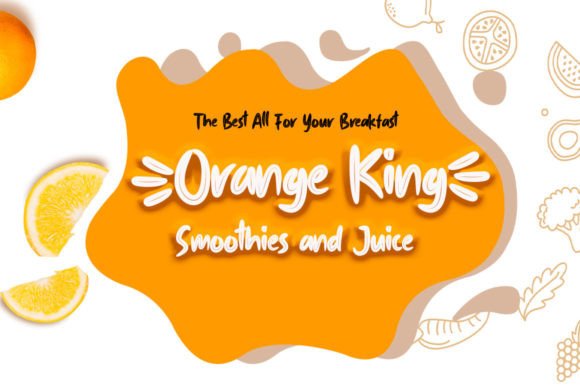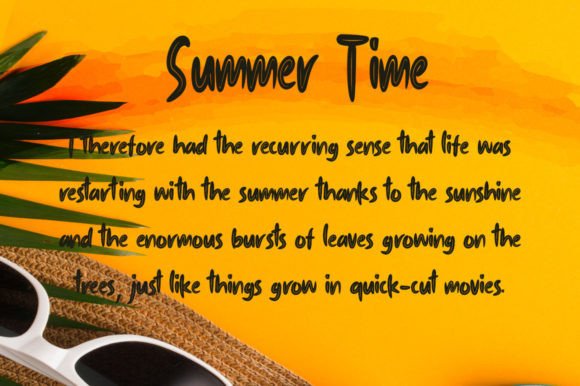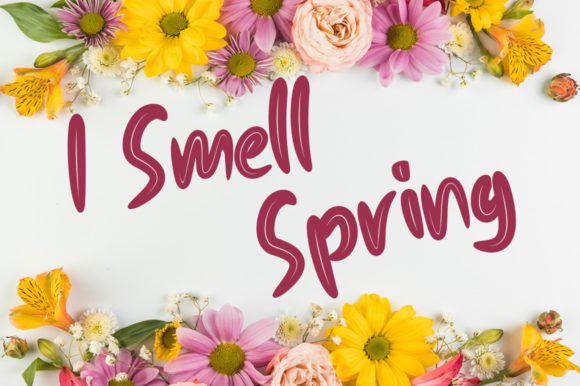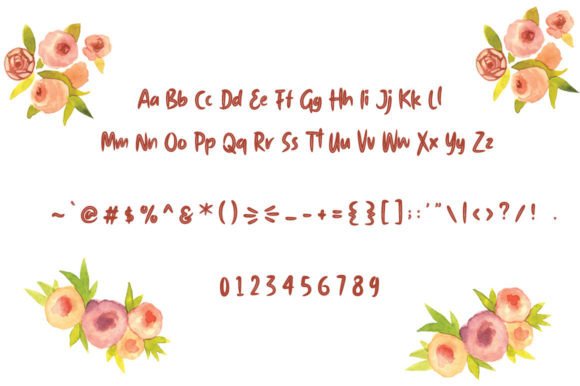
Dark Coffea Font
About Dark Coffea Font
Introducing Dark Coffea, a fun and handwritten font with a distinct coffee-like shape. This font is designed to bring a playful and energetic vibe to your designs, making it perfect for a variety of applications. From displays and titles to logos, packaging, craft projects, labels, T-shirts, and more, Dark Coffea adds a unique and coffee-inspired touch to your creative endeavors.
The fun and informal nature of Dark Coffea make it a great choice for projects where you want to convey a lighthearted and laid-back atmosphere. Imagine this font gracing your packaging, adding a whimsical element to your product presentation. Picture it on T-shirts or hoodies, where it brings a touch of fun and character to your apparel designs.
Envision Dark Coffea making a statement in posters, stickers, and quotes, where its coffee-like shape adds a distinctive and memorable quality. Whether you’re working on advertising materials or crafting personalized items, this font adapts effortlessly to various contexts.
In summary, Dark Coffea is more than just a font; it’s a fun and versatile design tool for a range of creative applications. Let it be the choice that infuses your designs with a playful and coffee-inspired charm, making them stand out with character and uniqueness.